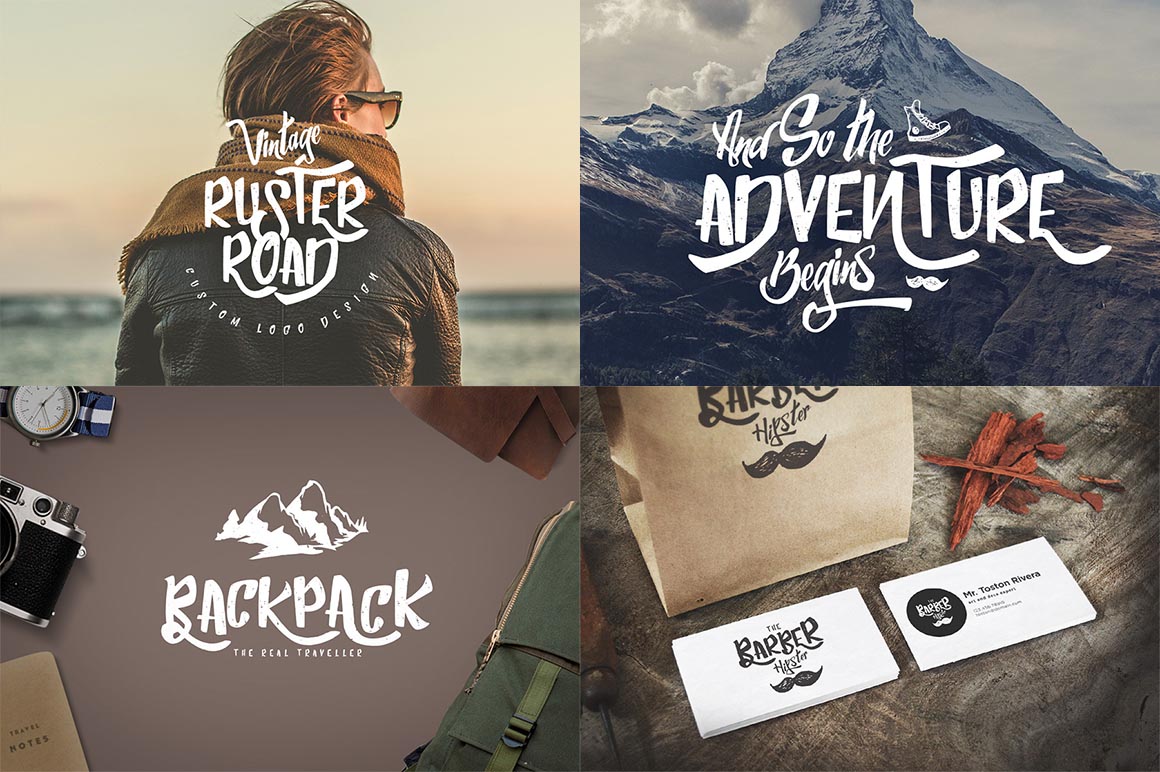
Humblle Rought – Free Font
This creative & unique style handdrawn font is from Dirtyline Studio. Great for your new creative projects. Download and enjoy 😉